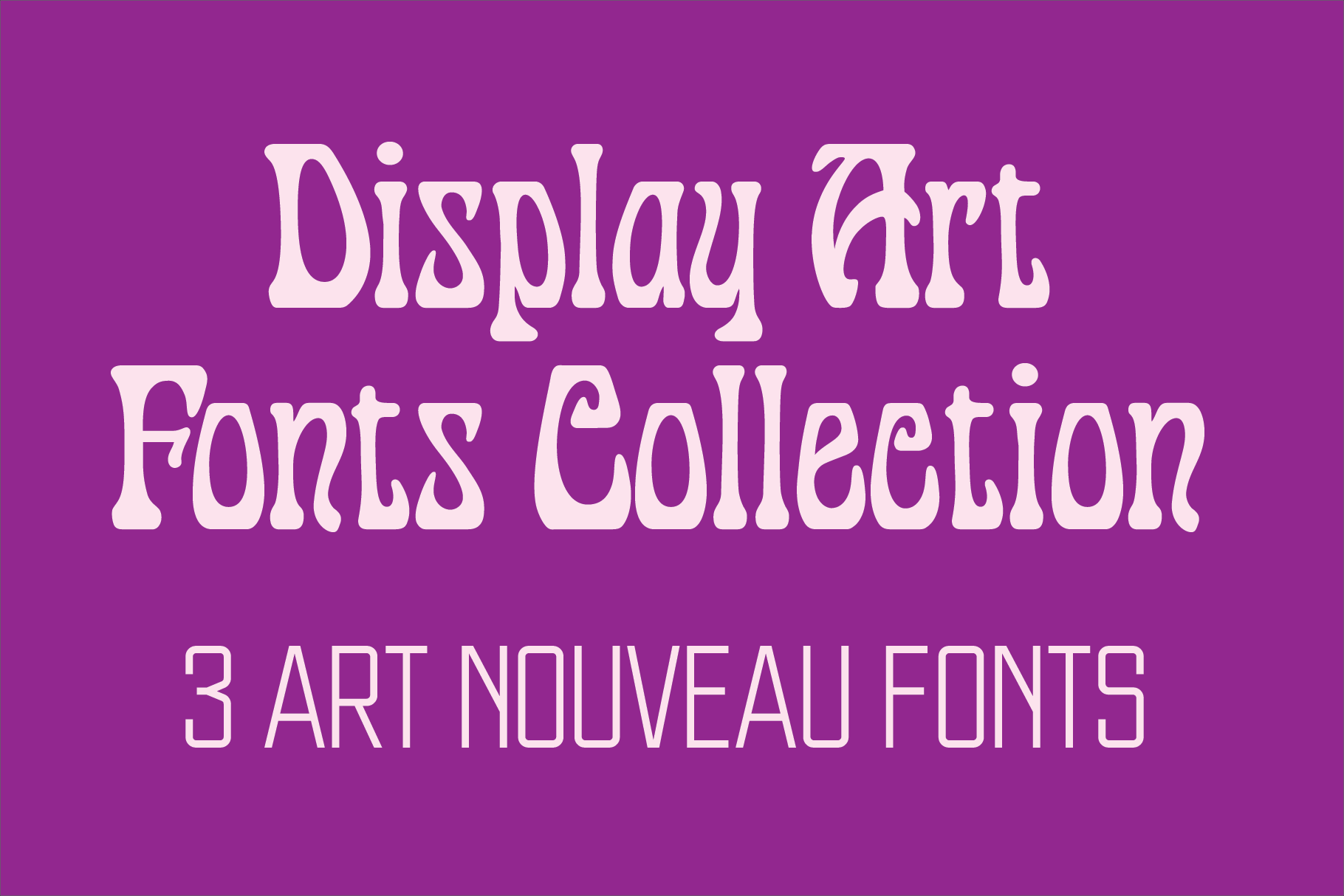
Display Art Fonts Collection
The Display Art fonts are display fonts inspired by the art nouveau fonts popular at the turn of the 20th century. They are not intended for text use. They were designed specifically for display, headline, logotype, branding, and similar applications.
Display Art One has uppercase and lowercase alphabets, numbers, and basic punctuation.
Display Art Two and Display Art Three has an uppercase alphabet, numbers, and basic punctuation.